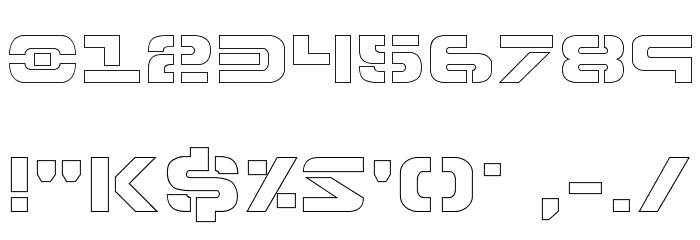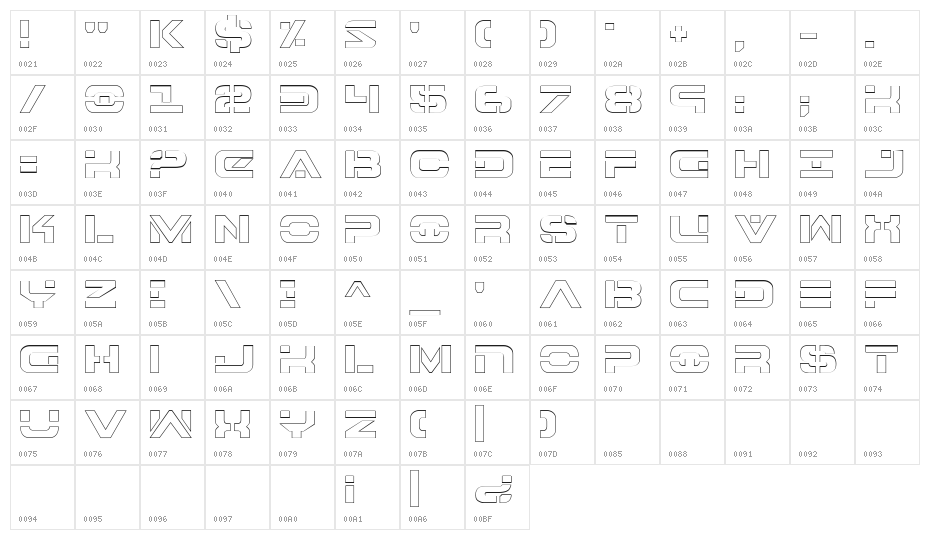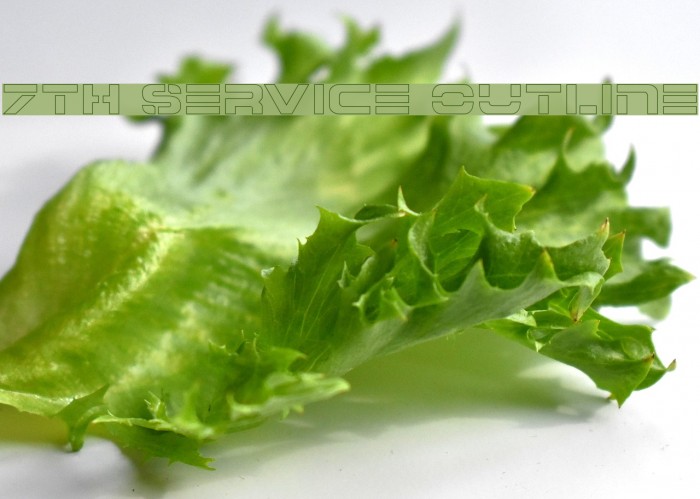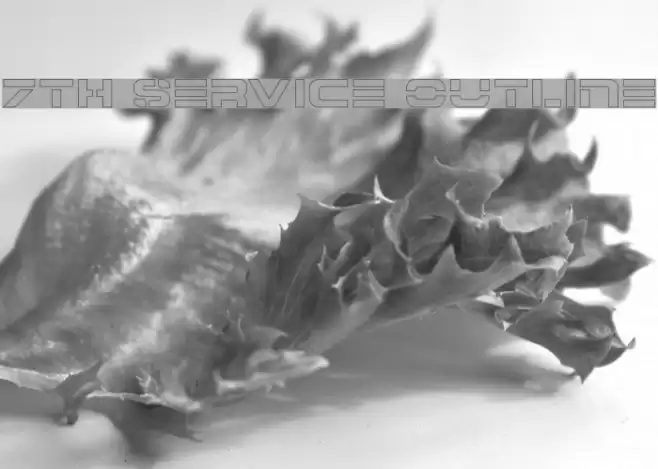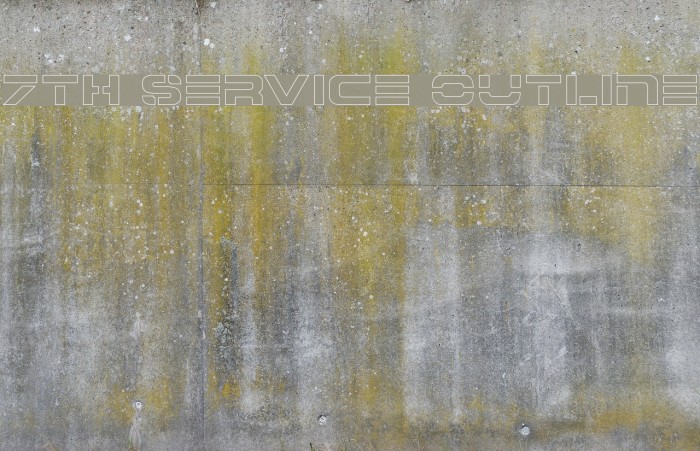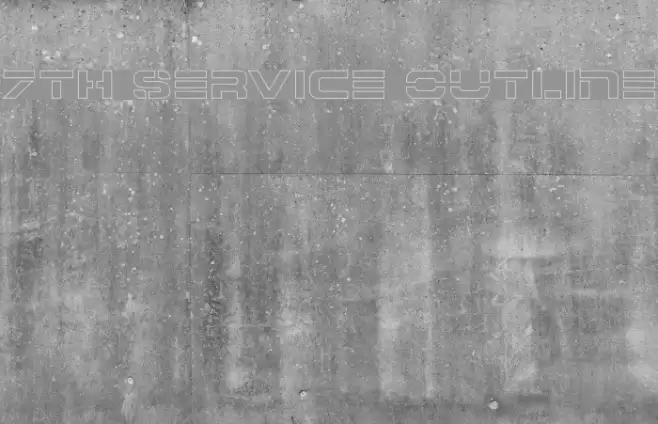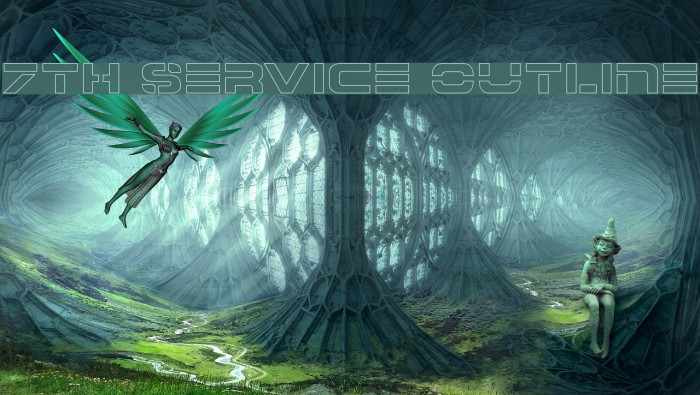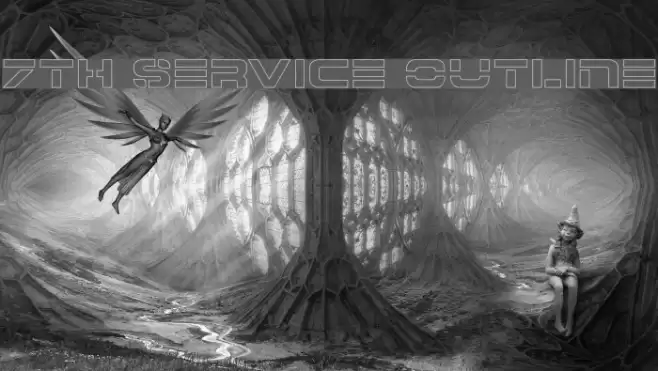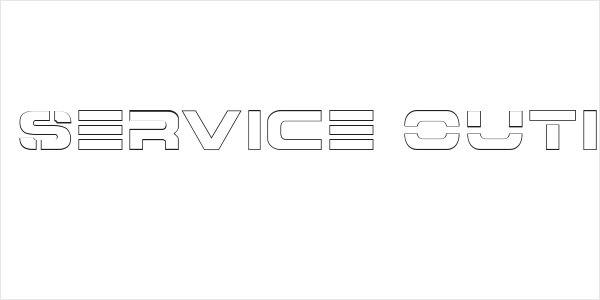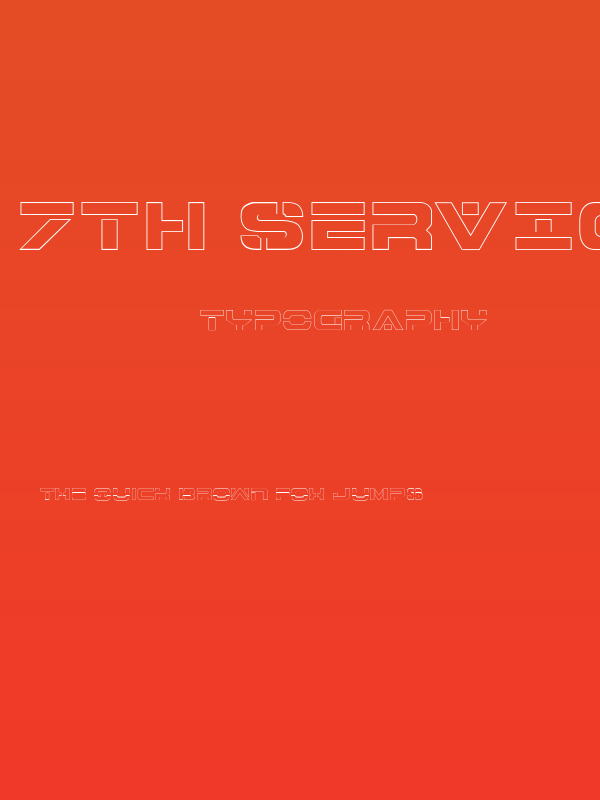
7th Service Outline Font
7th Service Outline Description
This font features a modern, geometric outline style with a futuristic feel. Each character is constructed with clean, angular lines and open spaces, creating a sense of depth and dimension. The uppercase and lowercase letters maintain a consistent design, emphasizing symmetry and uniformity. Numbers and special characters follow the same aesthetic, ensuring a cohesive look across all elements. The font's outline nature gives it a unique, airy appearance, making it stand out in digital and print media.